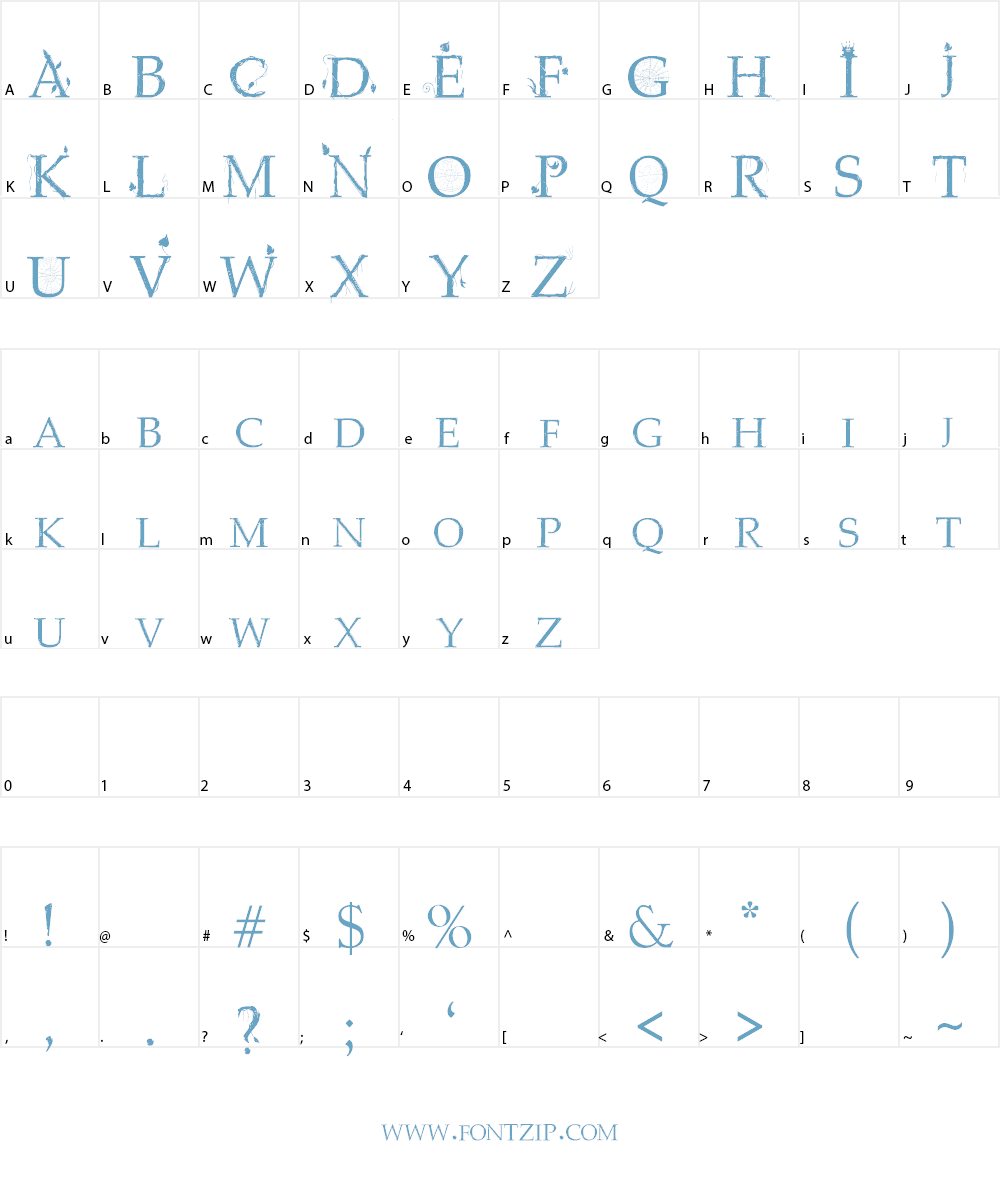
Fairy tale like font. Letters decorated with leaves, vines and spiderwebs. Capitals are beautiful and rich decorated, lowercases are simple and have no embellishments. No numbers in this version. Write in capitals to see the beauty of this font.